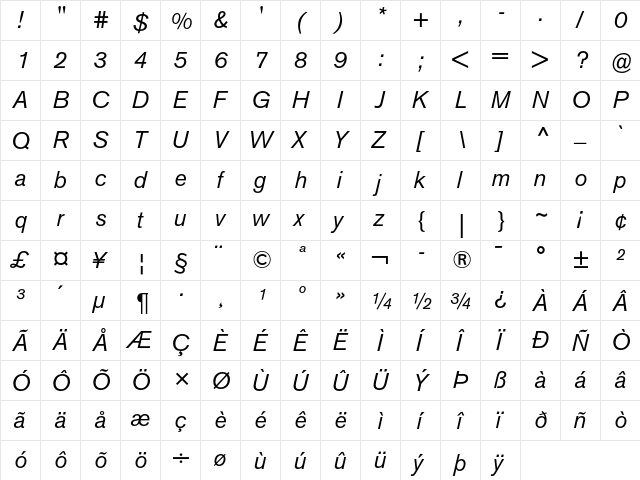
Berthold Akzidenz Grotesk Italic Font Preview
Design Context for Berthold Akzidenz Grotesk Typeface
Berthold Akzidenz Grotesk takes a clean, functional approach — its unadorned letterforms prioritise legibility and work reliably across screen and print environments. Its italic angle brings a sense of urgency and motion to the letterforms.
Font Pairing: Works well alongside a characterful serif or display font that can carry the expressive load while Berthold Akzidenz Grotesk handles the functional copy.
Pro Tip: Pair Berthold Akzidenz Grotesk with a display or serif font for headlines — its neutral character makes it an excellent supporting player in complex typographic systems.